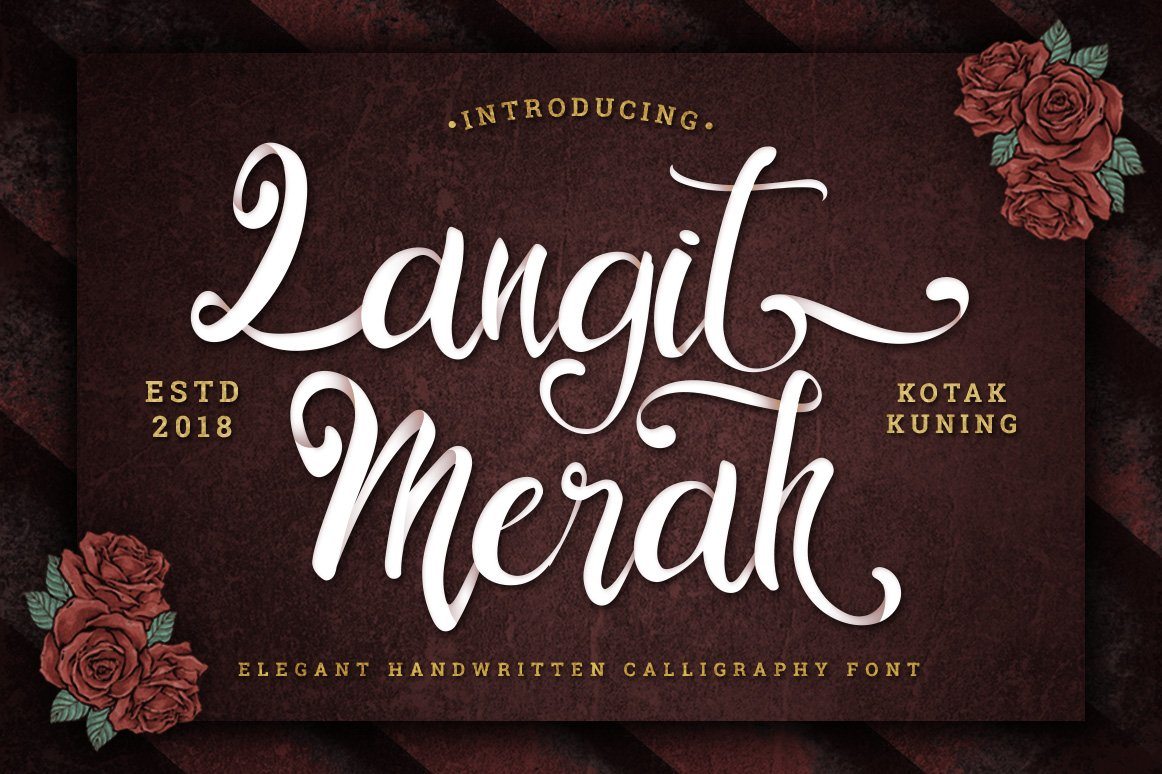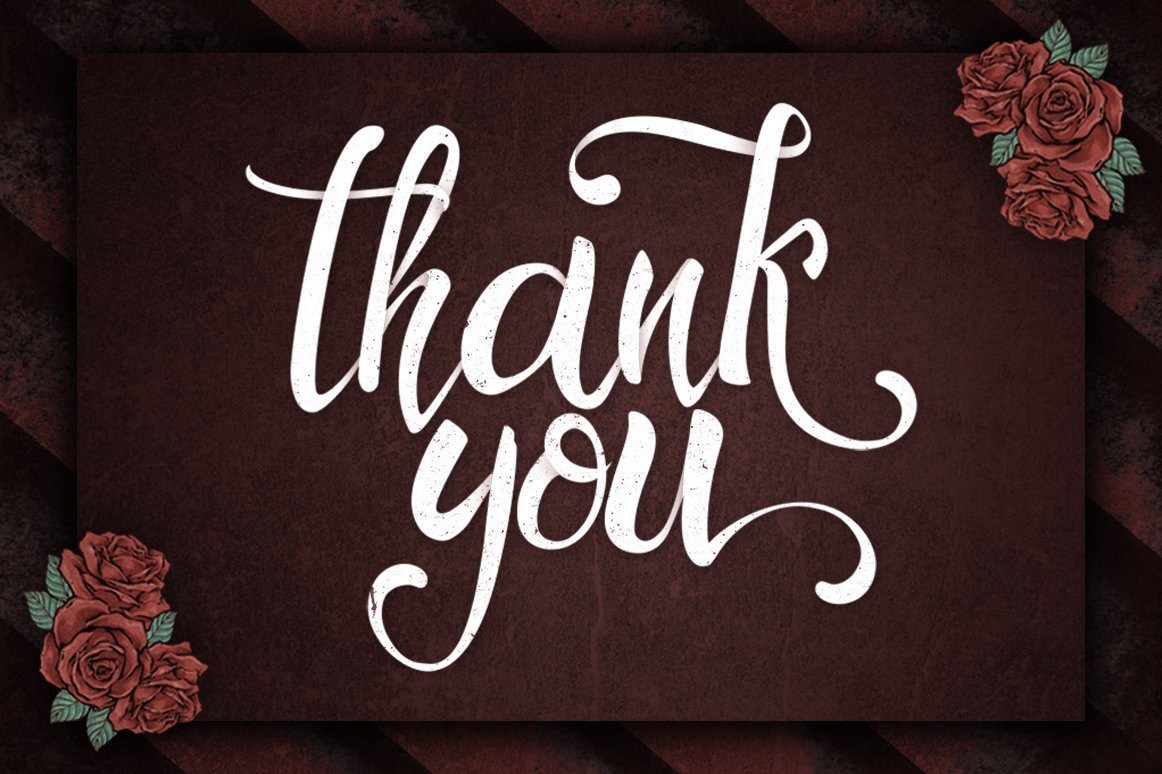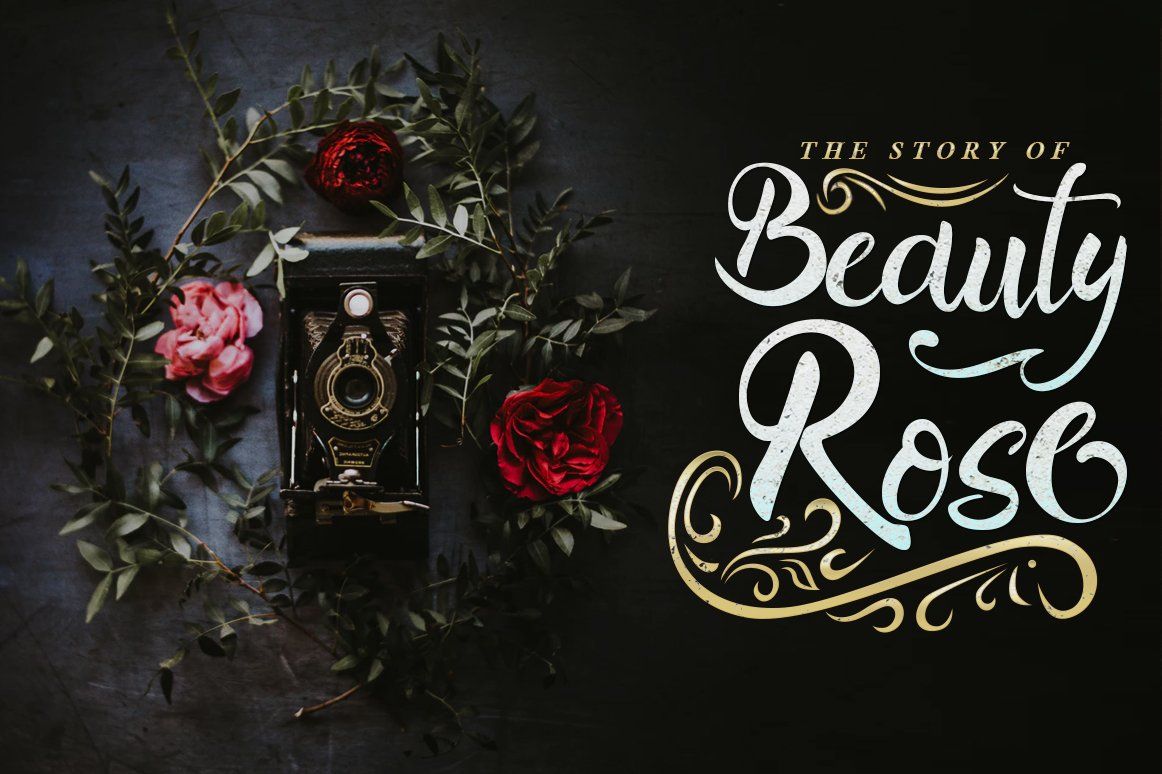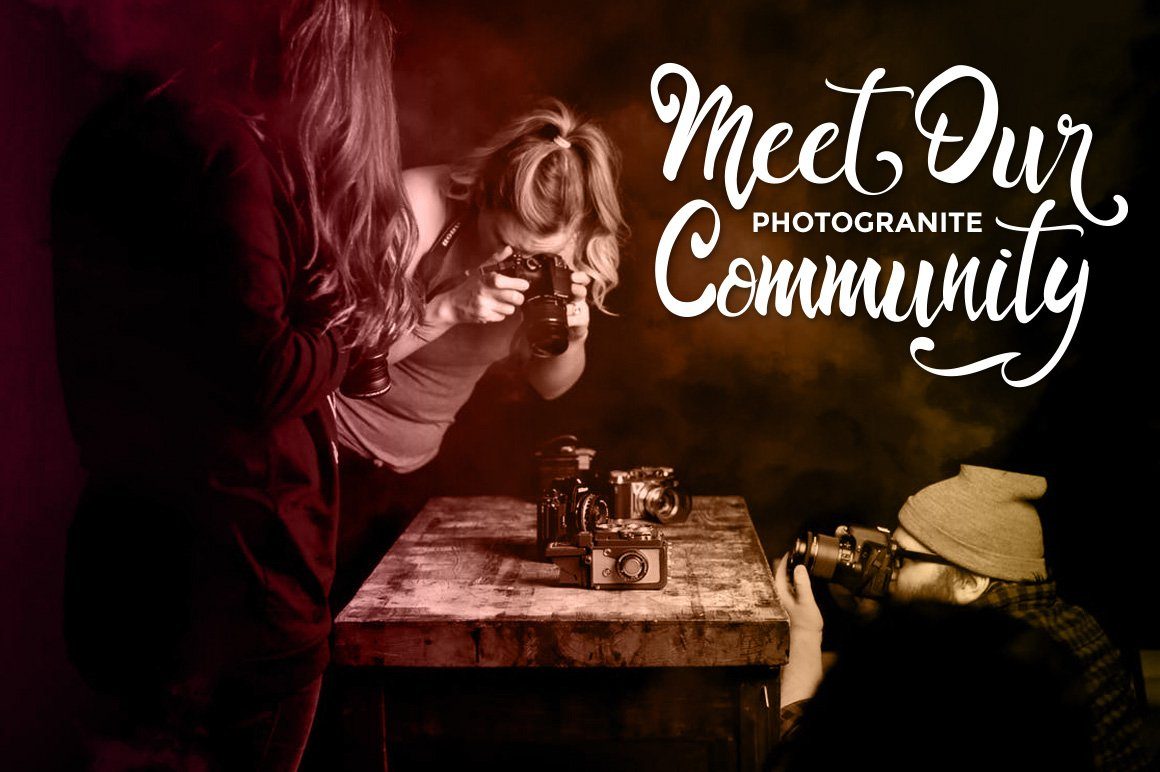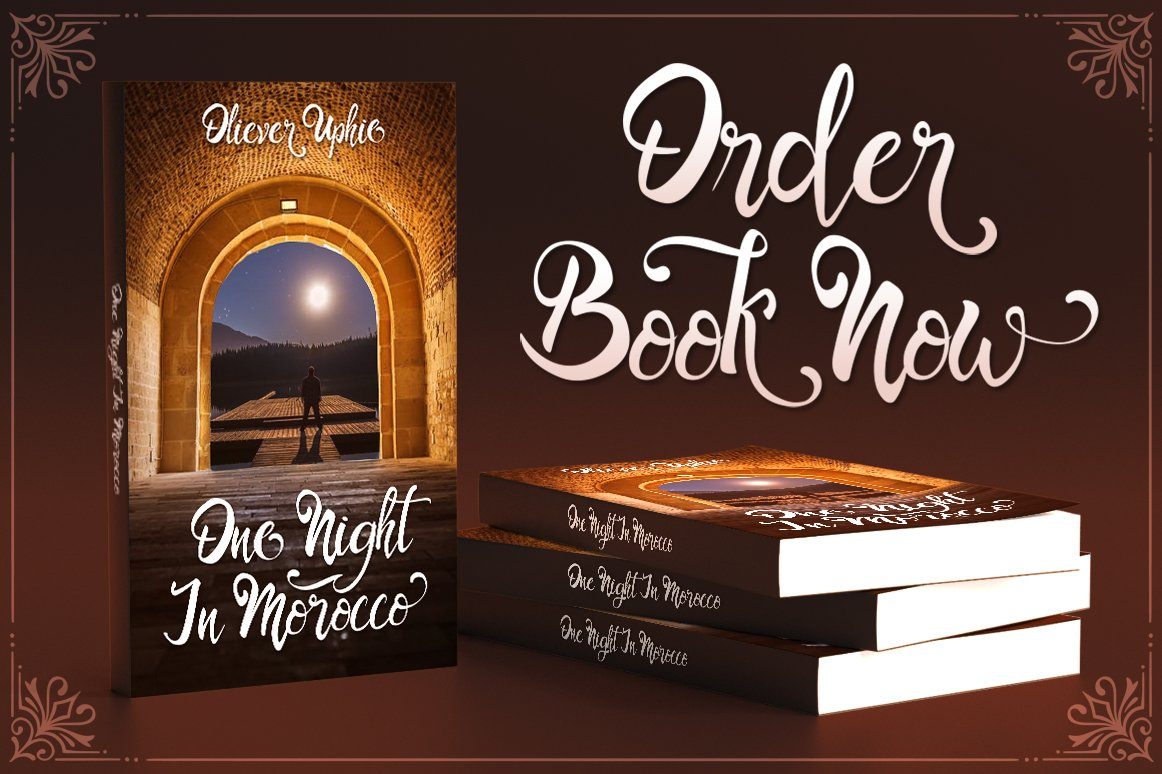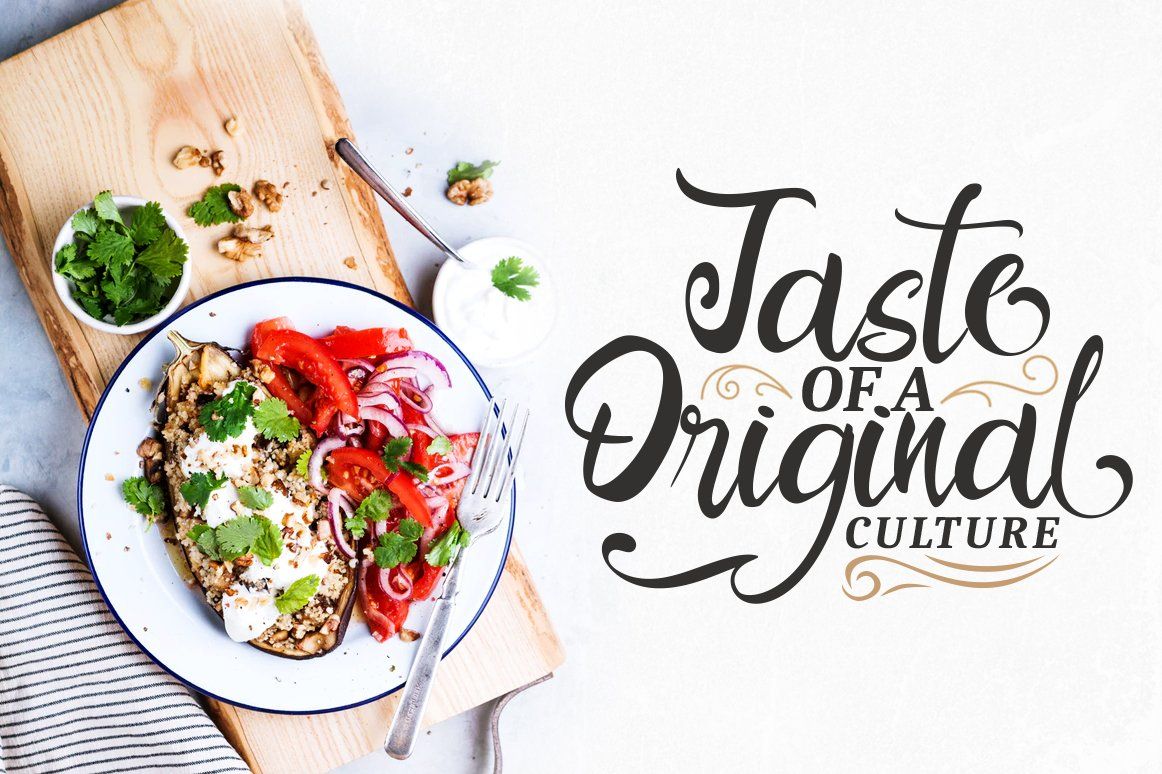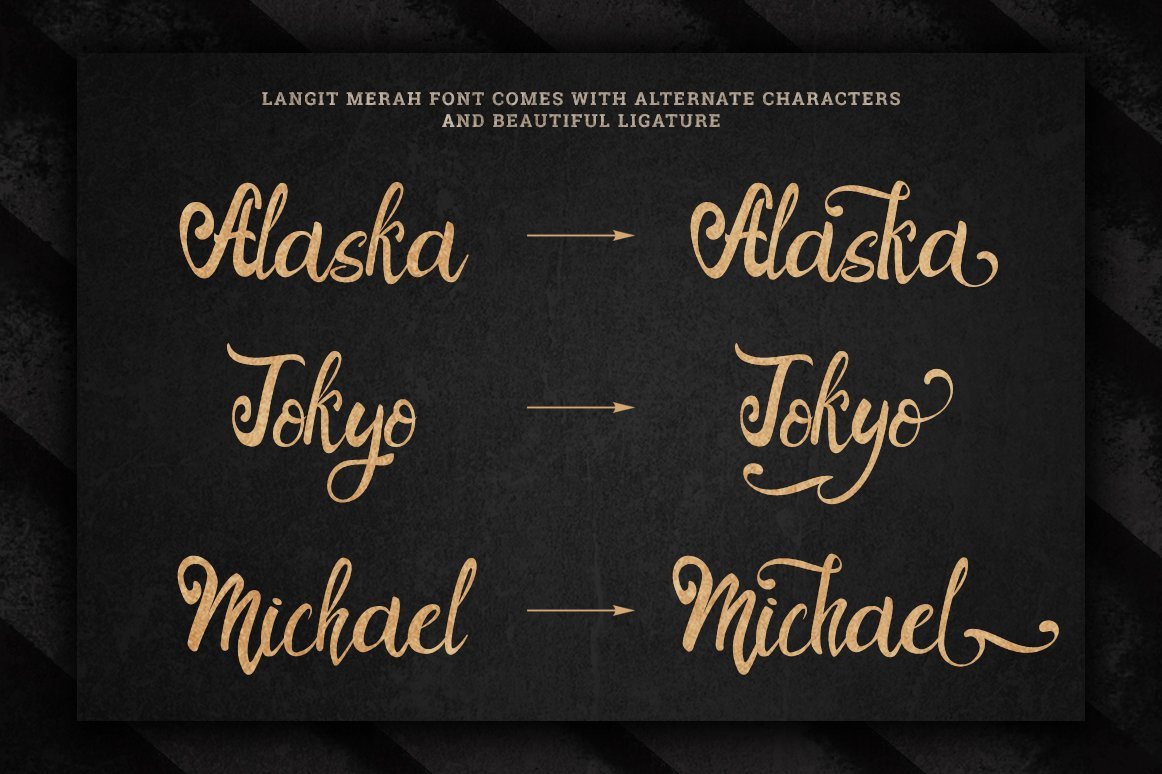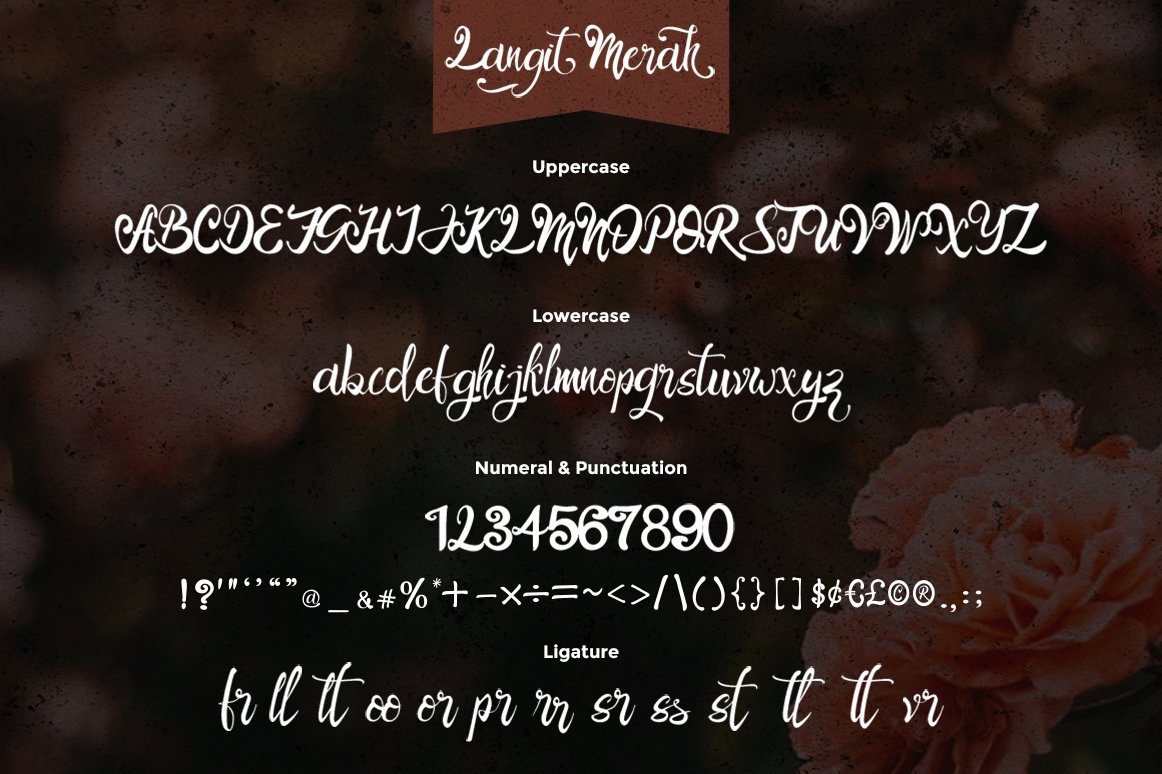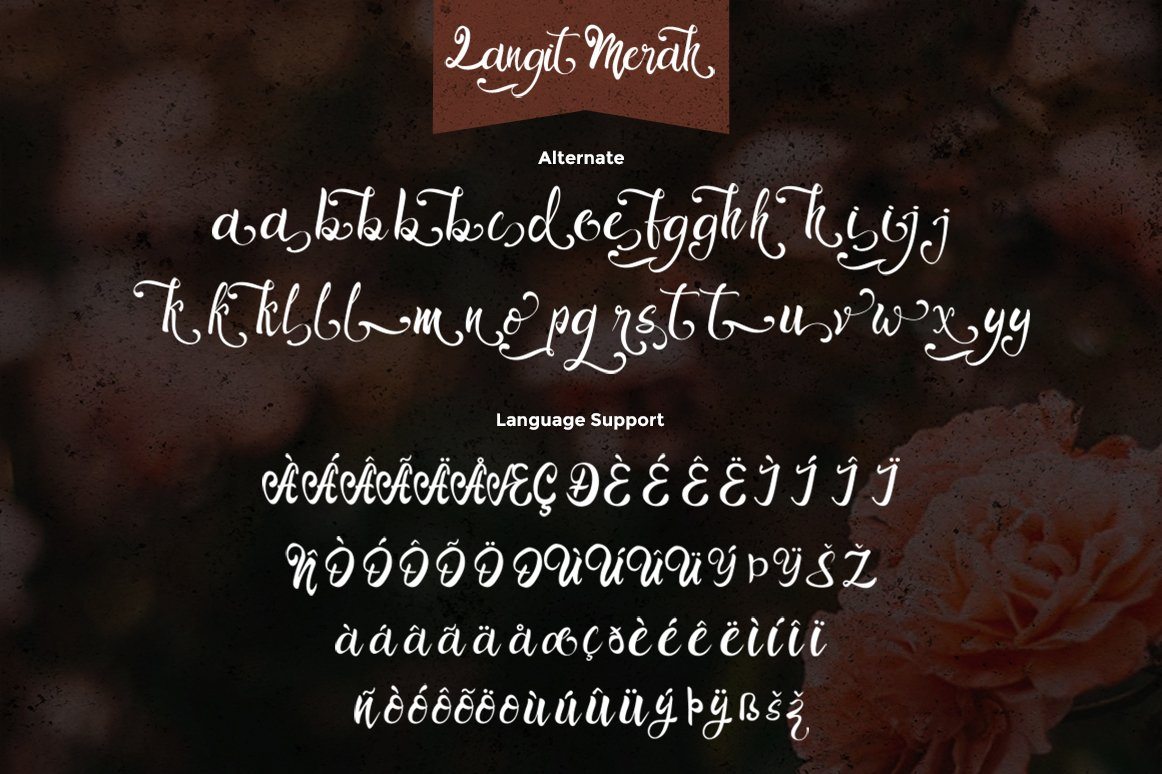
Langit Merah Script
About Langit Merah Script
Introducing, Langit Merah Font! An elegant handwritten calligraphy font with Hand Lettering style which gives more personal touch and makes the font looks being customized. This font is suitable to use as a logotype, product designs, label, watermark, social media posts, apparel, invitation, signboard, sport club, motor/car community, special events or anything that need handwriting taste. What’s Included : Ton of glyphs (include Uppercase, Lowercase, Numerals & Punctuations, Ligature, Alternate, and Swashes) Works on PC & Mac Simple installations Accessible in the Adobe Illustrator, Adobe Photoshop, Adobe InDesign, even work on Microsoft Word. PUA Encoded Characters – Fully accessible without additional design software. Fonts include Multilingual Support for: Afrikaans, Albanian, Danish, Dutch, Estonian, Finnish, German, Icelandic, Italian, Norwegian, Portuguese, Spanisch, Swedish, Zulu We hope you enjoy the font. Thank You